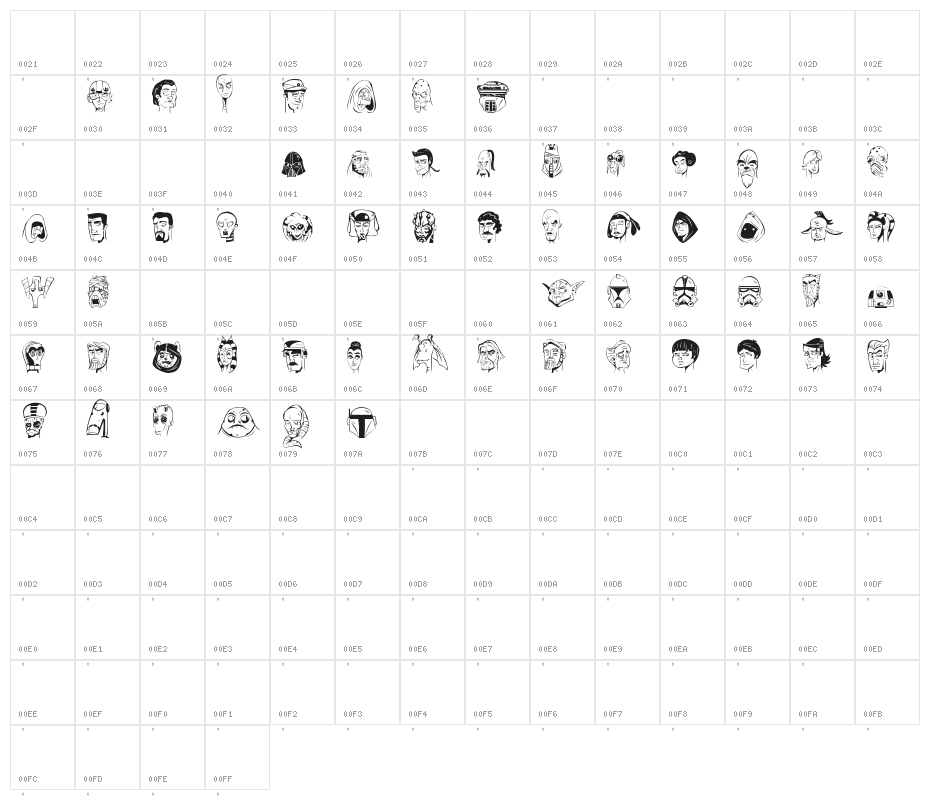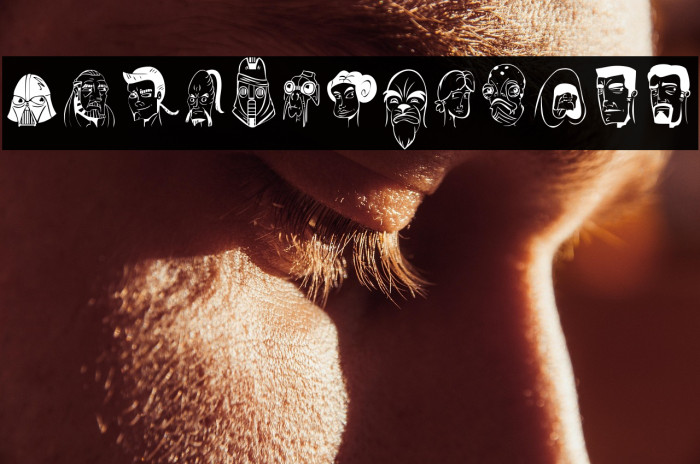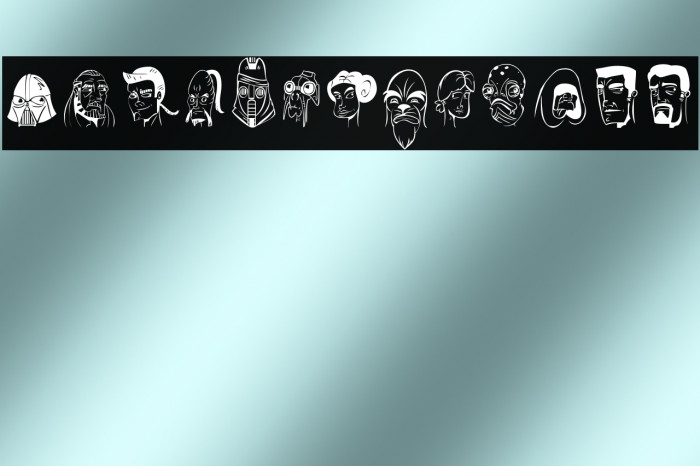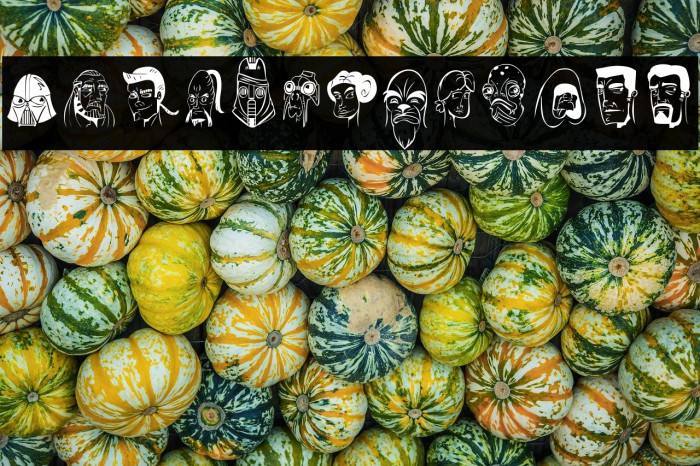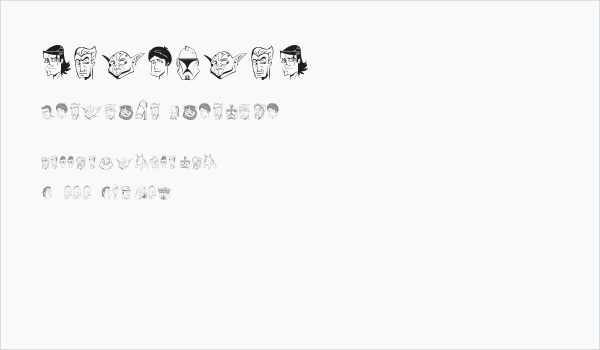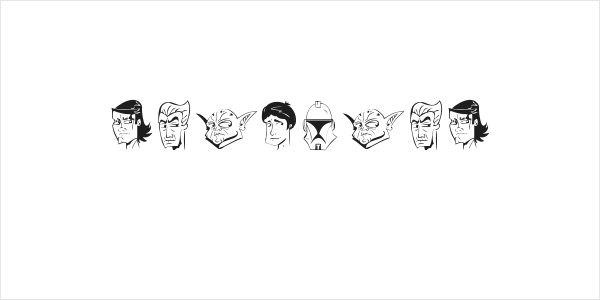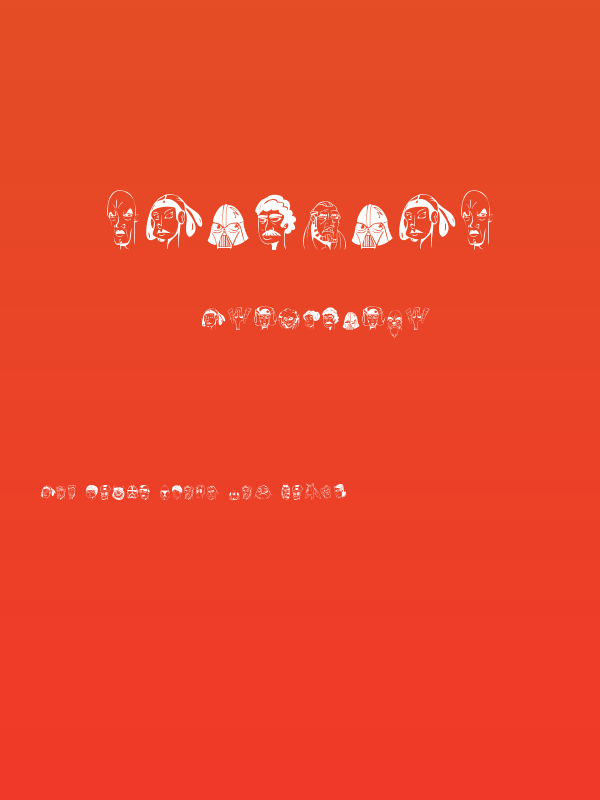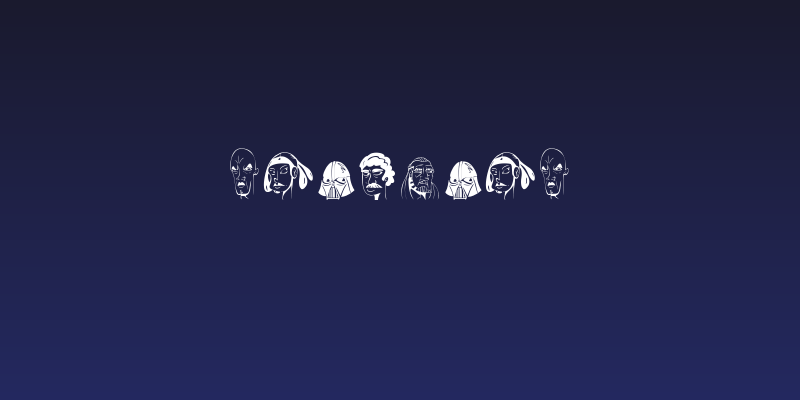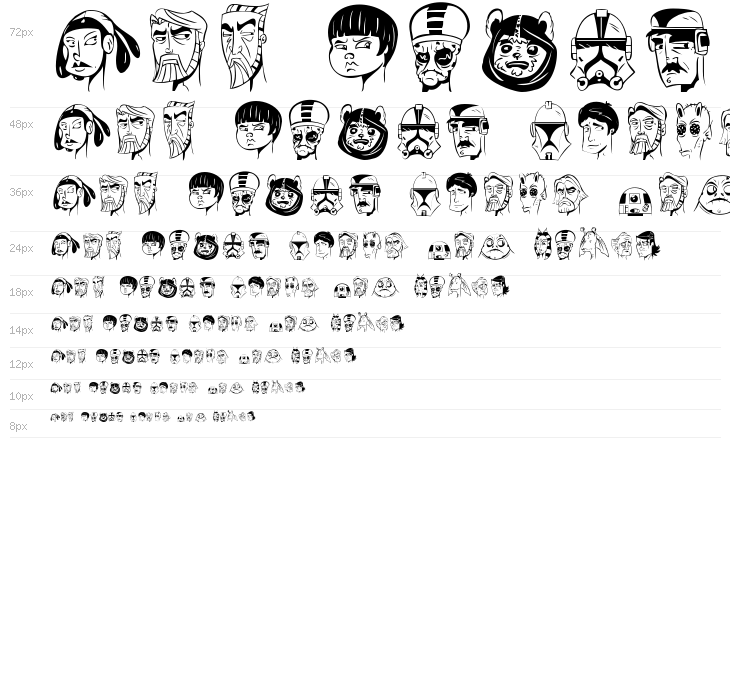
starbats Font
starbats Description
A decorative display font featuring hand-drawn, cartoon-style character illustrations inspired by a popular sci-fi universe. Each glyph is a unique, expressive caricature, with bold outlines and playful details, replacing standard alphanumeric and symbol characters.
| Overall Style | Decorative, Playful, Thematic |
| Use Case | Logos, Headlines, Posters, Themed Graphics |
| Proposed Projects | Posters, fan art, themed party invitations, novelty merchandise, comic books, event flyers. |